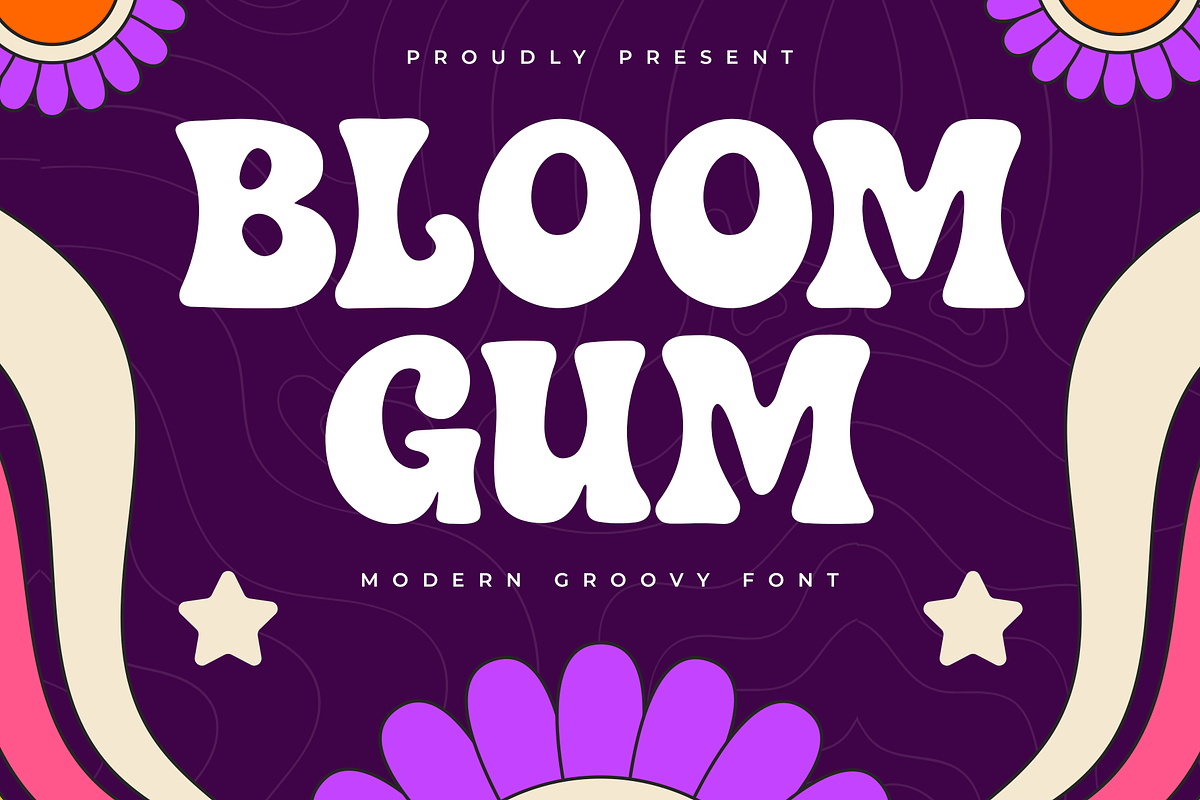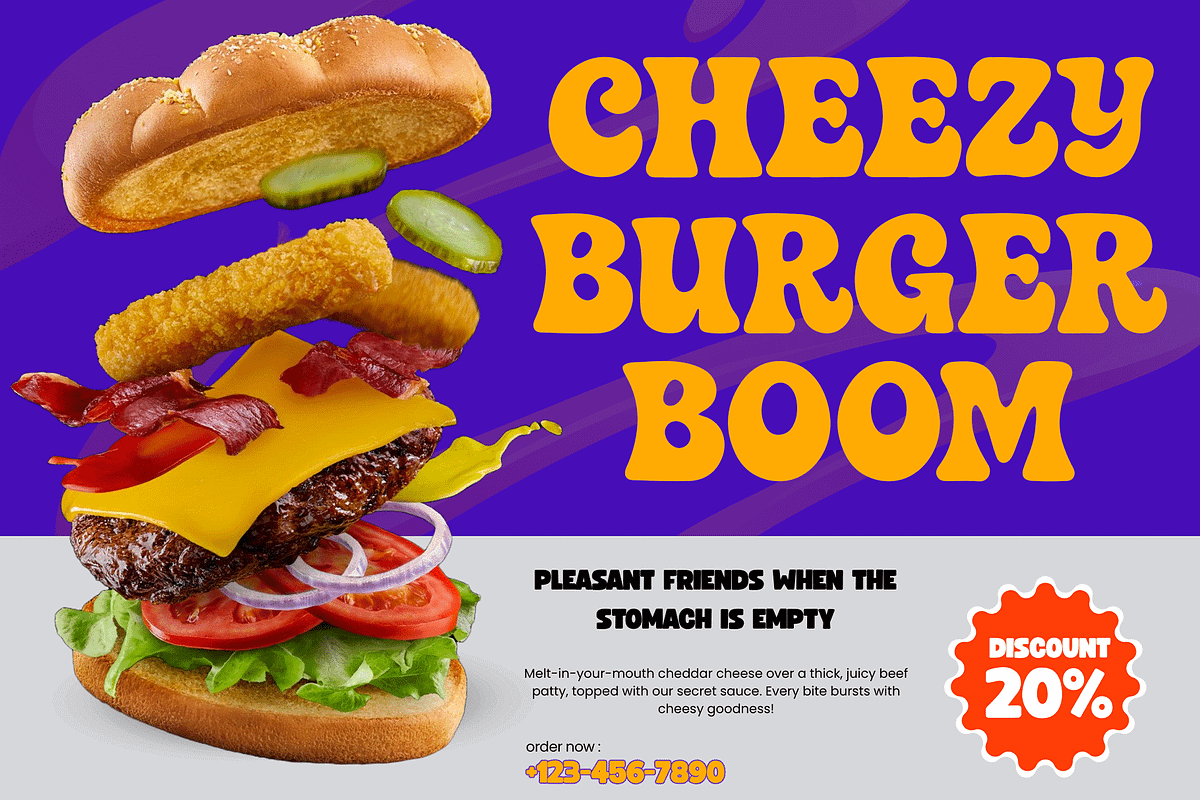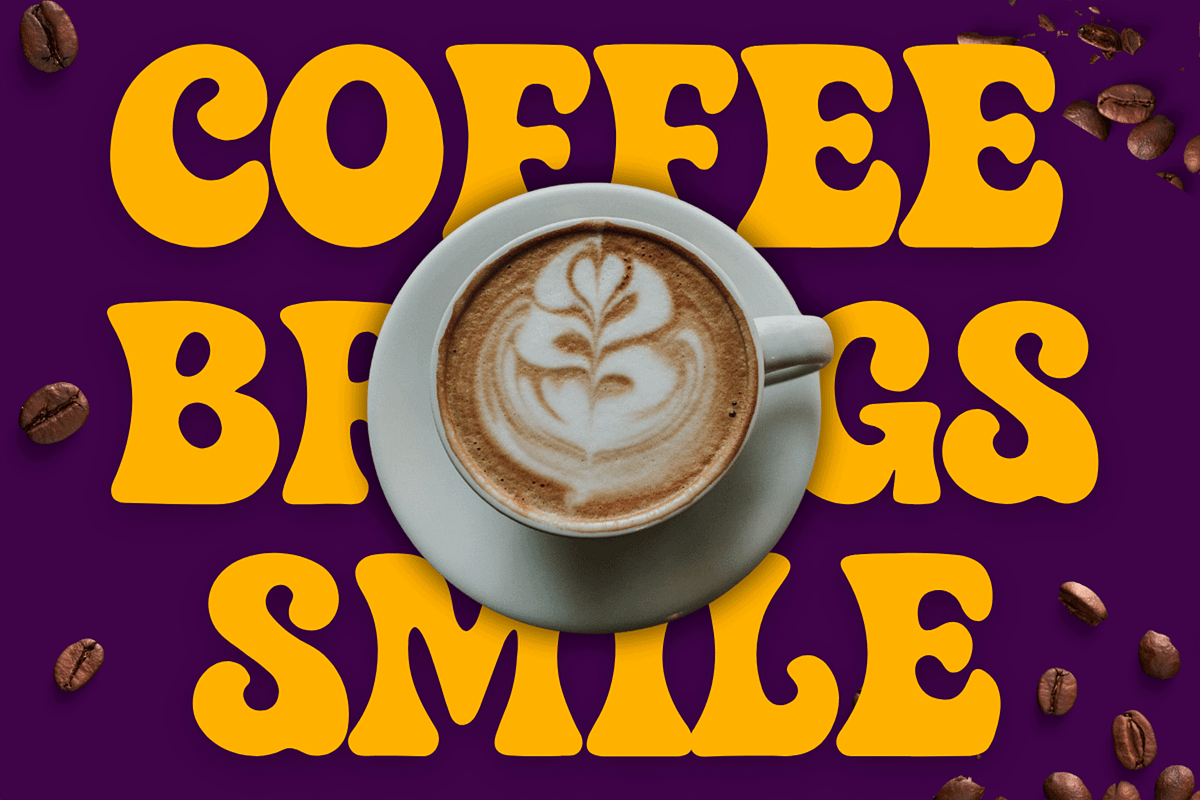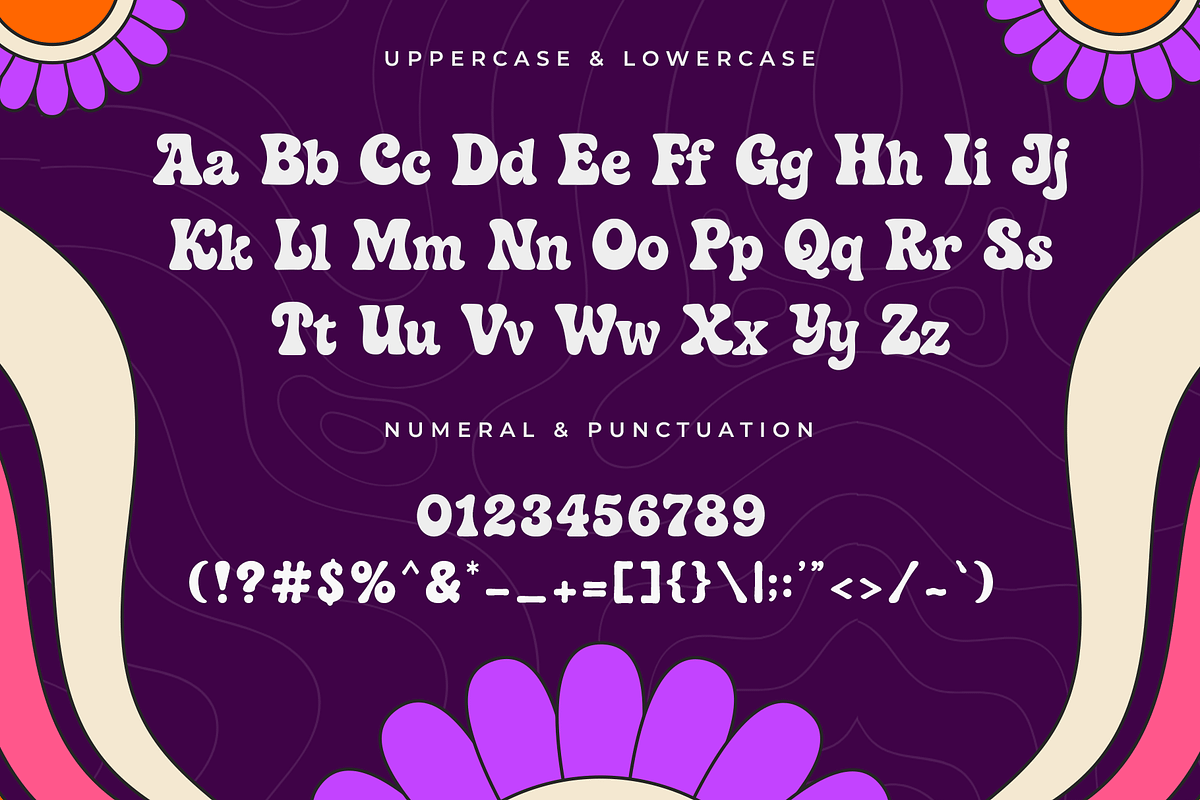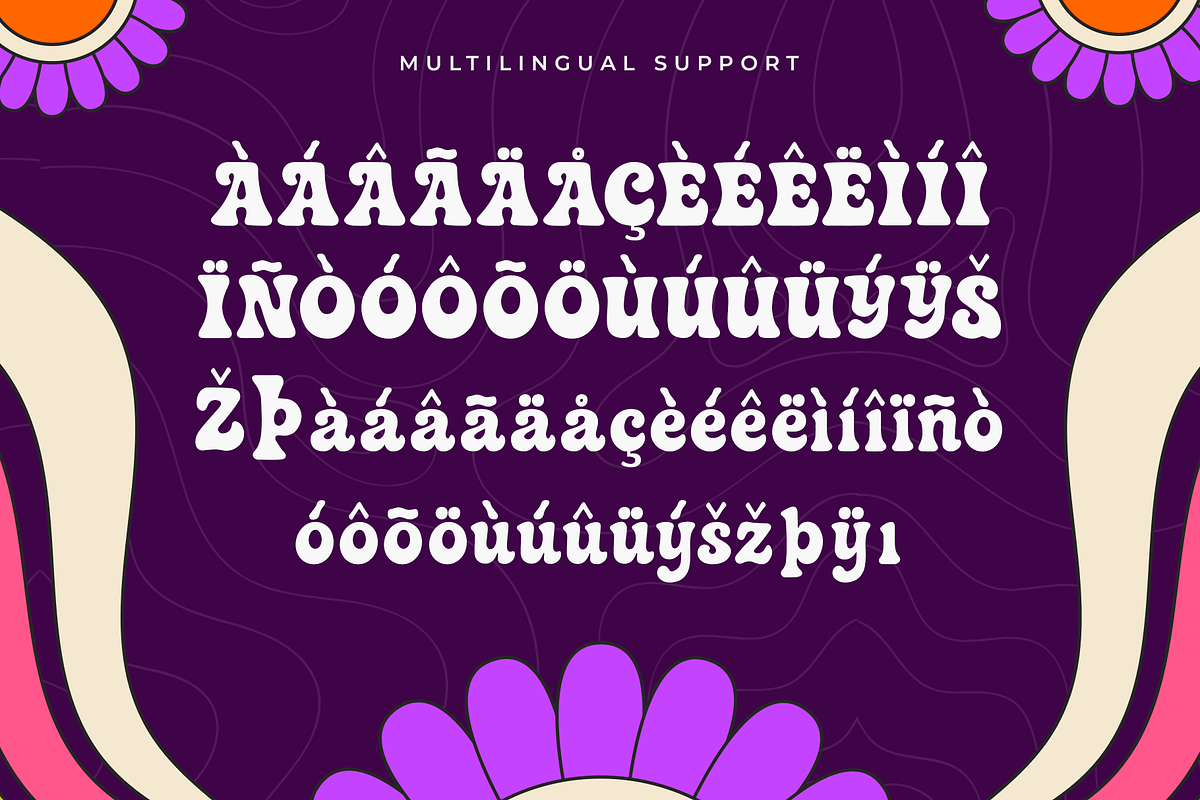
Bloom Gum – A Modern Groovy Font
Bloom Gum is a modern groovy font bursting with playful energy and retro vibes. With its chunky curves, bubbly shapes, and joyful rhythm, this typeface adds a delightful flair to any creative project. It’s bold, funky, and full of personality perfect for designs that want to stand out with a cheerful, feel-good style.
Ideal for branding, posters, music covers, packaging, social media graphics, and more. Bloom Gum brings the fun of the ‘60s and ‘70s into the modern age.